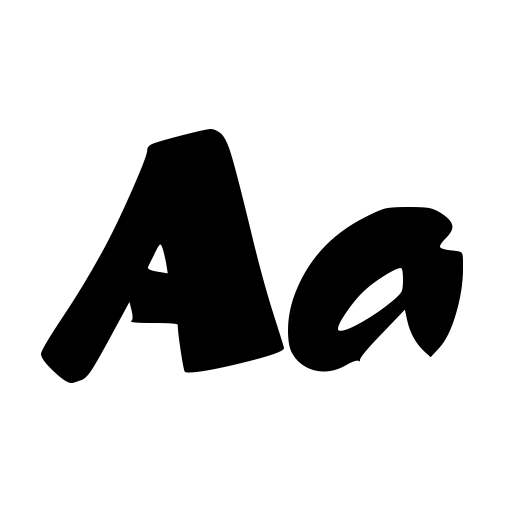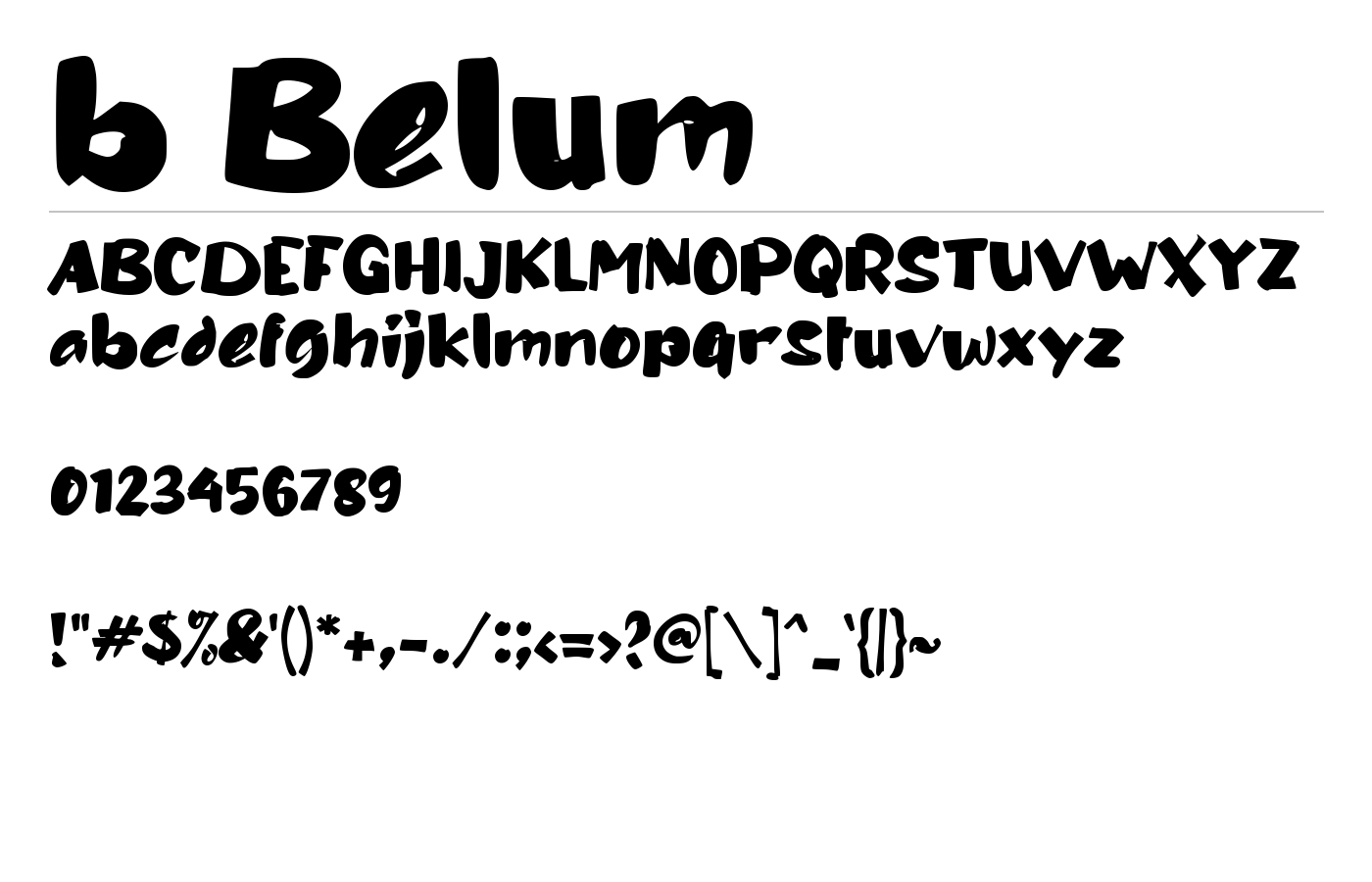
b Belum is a bold, playful sans serif font with a hand-drawn feel, featuring irregular shapes and strong, chunky strokes that give it a casual and friendly personality. Its lively and informal style makes it ideal for creative projects, children’s designs, and branding that aims to convey approachability and fun. This font works well in headlines, posters, and packaging where a unique and energetic vibe is desired.
b Belum Font